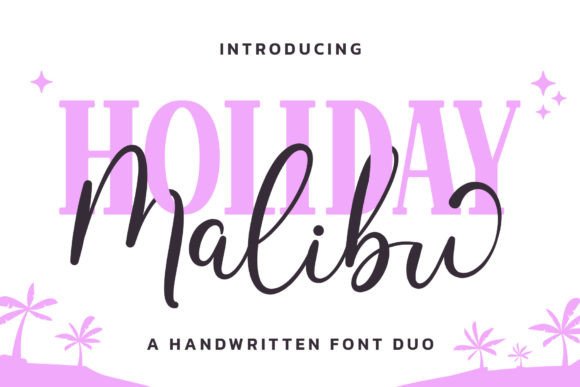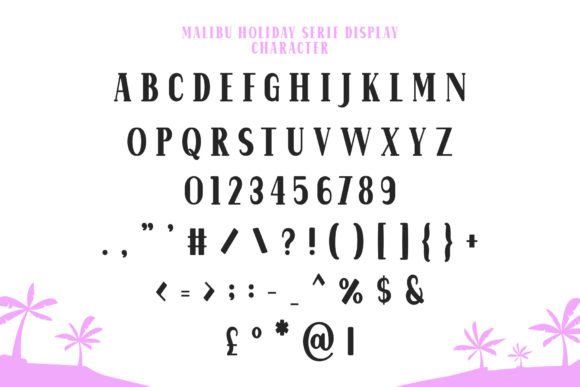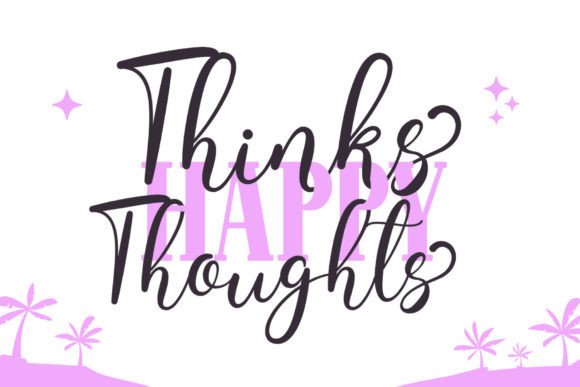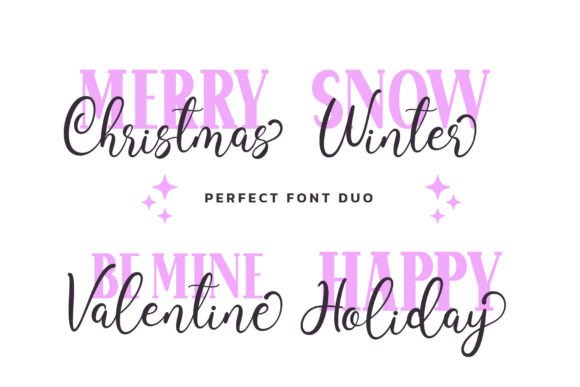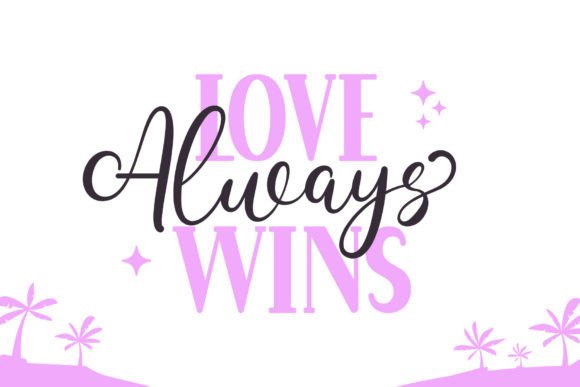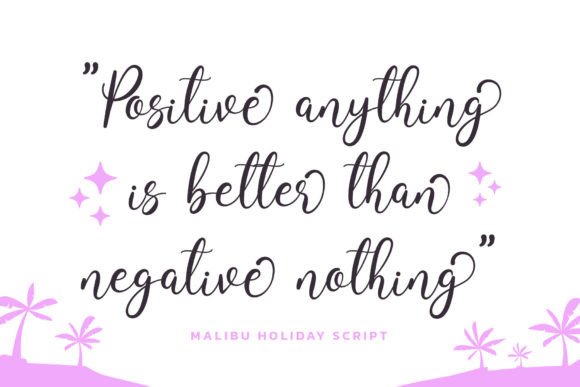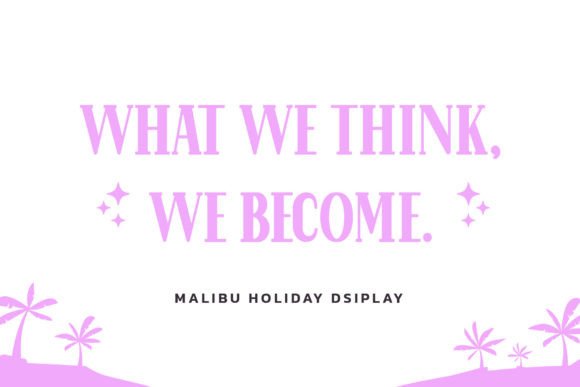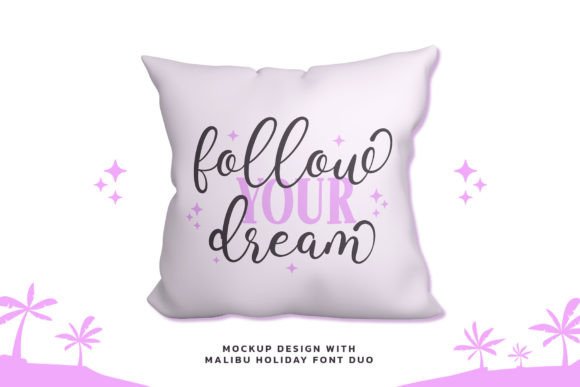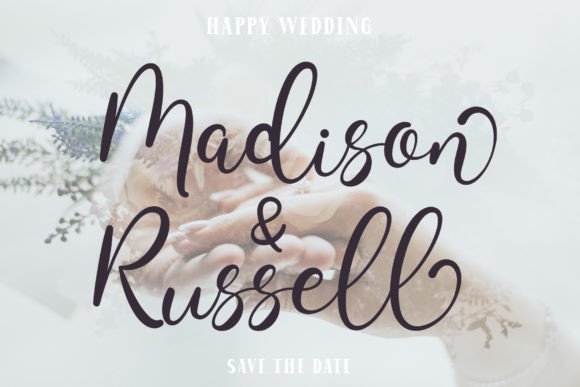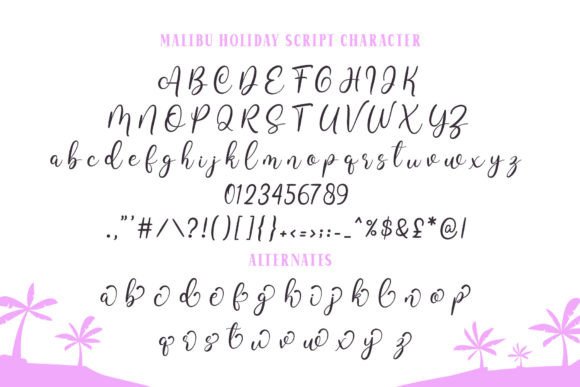
Malibu Holiday Duo Font
Add Charm and Versatility with Malibu Holiday Duo Font
The Malibu Holiday Duo font is a lovely and cute font duo featuring two distinct styles: a script monoline and a serif display. Inspired by the beautiful vibes of Malibu, this font duo perfectly suits summery and kids’-related products, bringing freshness and playfulness to your designs. Whether you’re creating branding, packaging, or promotional materials, Malibu Holiday Duo adds a bright and cheerful touch.
Perfect for Summery and Kids’ Products
The Malibu Holiday Duo font fits a wide range of creative projects, including children’s books, toy packaging, summer event flyers, greeting cards, and social media graphics. The complementary script and serif styles allow for versatile design combinations, making your projects visually engaging and balanced.
Stylish, Playful, and Readable Typography
While visually charming, the Malibu Holiday Duofont maintains excellent readability across different sizes. Whether used for headlines, logos, or body text, both the script and serif fonts offer clarity and aesthetic appeal, making them ideal for various creative projects.
Make Your Designs Shine with Malibu’s Beauty